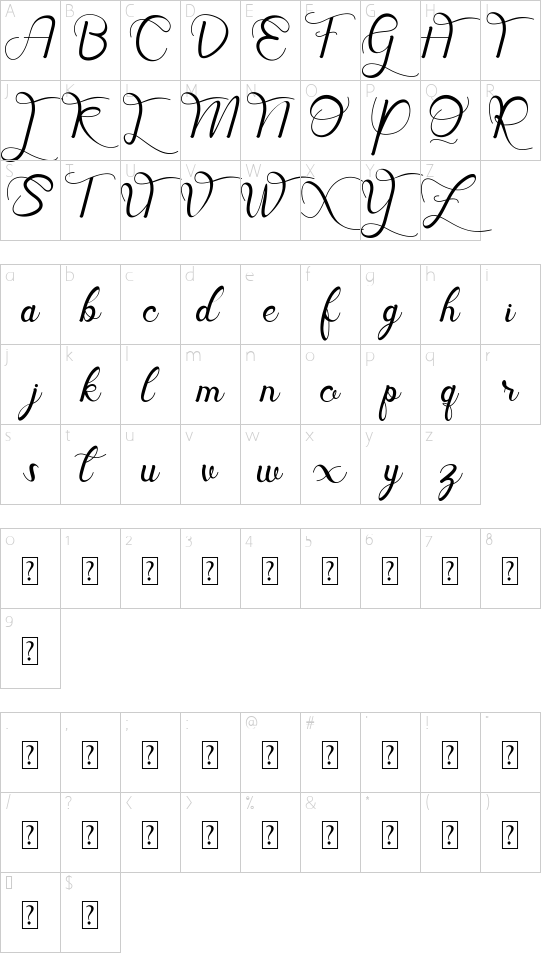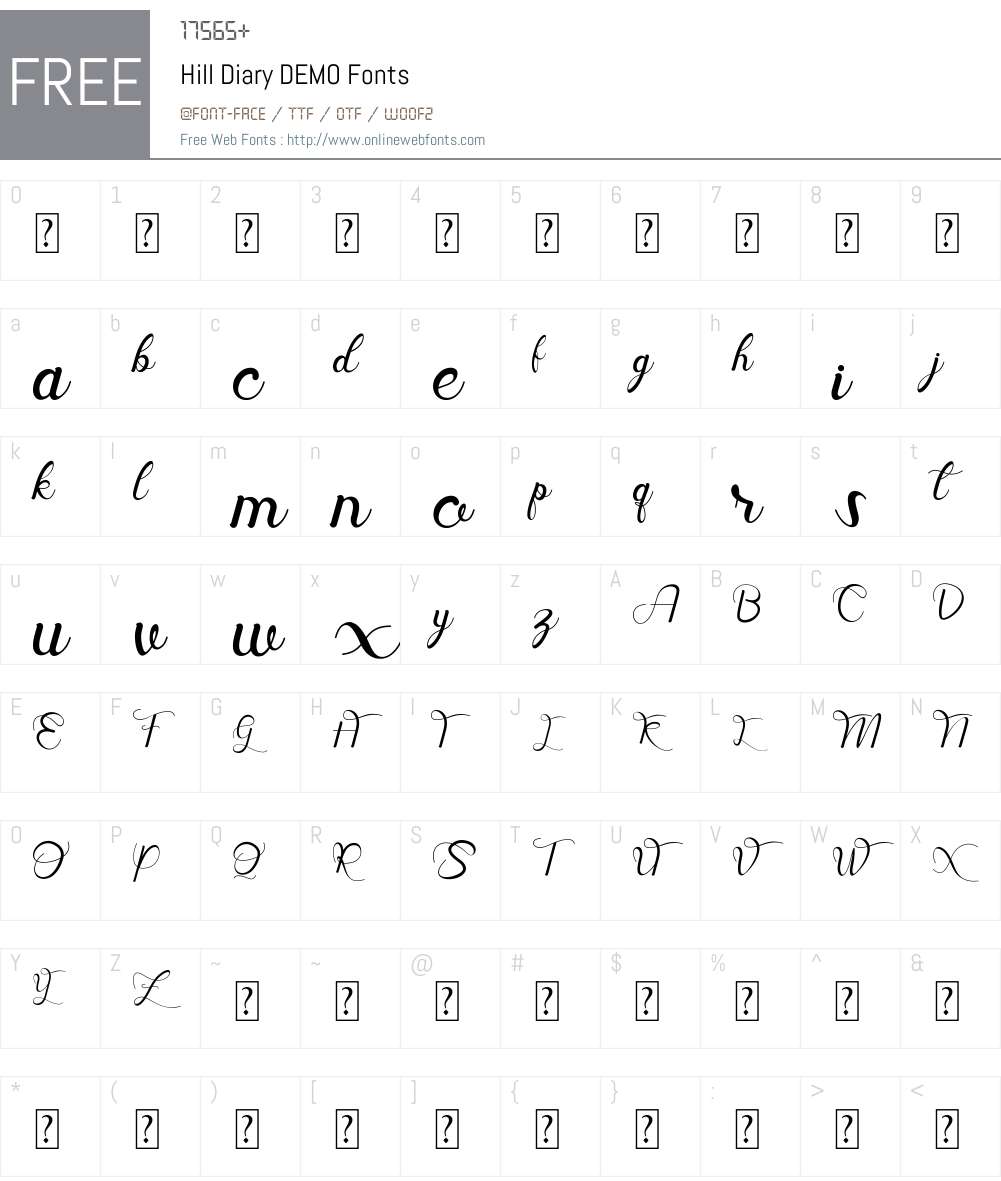
Hill Diary Font . This is our latest product called hill diary, modern script font. Perfect for logotype, headline, apparels, quotes, posters, labels with vintage and exclusive. Hill diary by hill diary? 12,830 downloads (2 yesterday) free for personal use. Click now to create a custom image with your own words. Download free font hill diary by raditya type studio from category calligraphy. Available in both ttf and otf typeface formats. Click here to create a custom image with your own text. Looking for hill diary font designed by raditya type studio? Get your very own free download of the hill diary font, designed and created by rt studio. Free download of hill diary font.